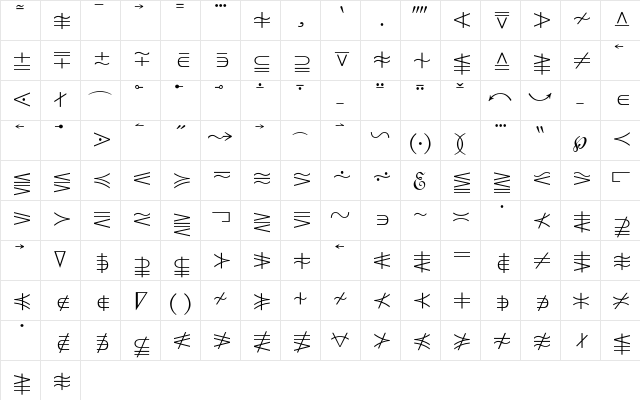
MathematicalPi 5 Regular
Design Context for MathematicalPi 5 Typeface
MathematicalPi 5 offers clean, dependable letterforms without strong stylistic allegiance, making it a practical choice for designers who need flexibility.